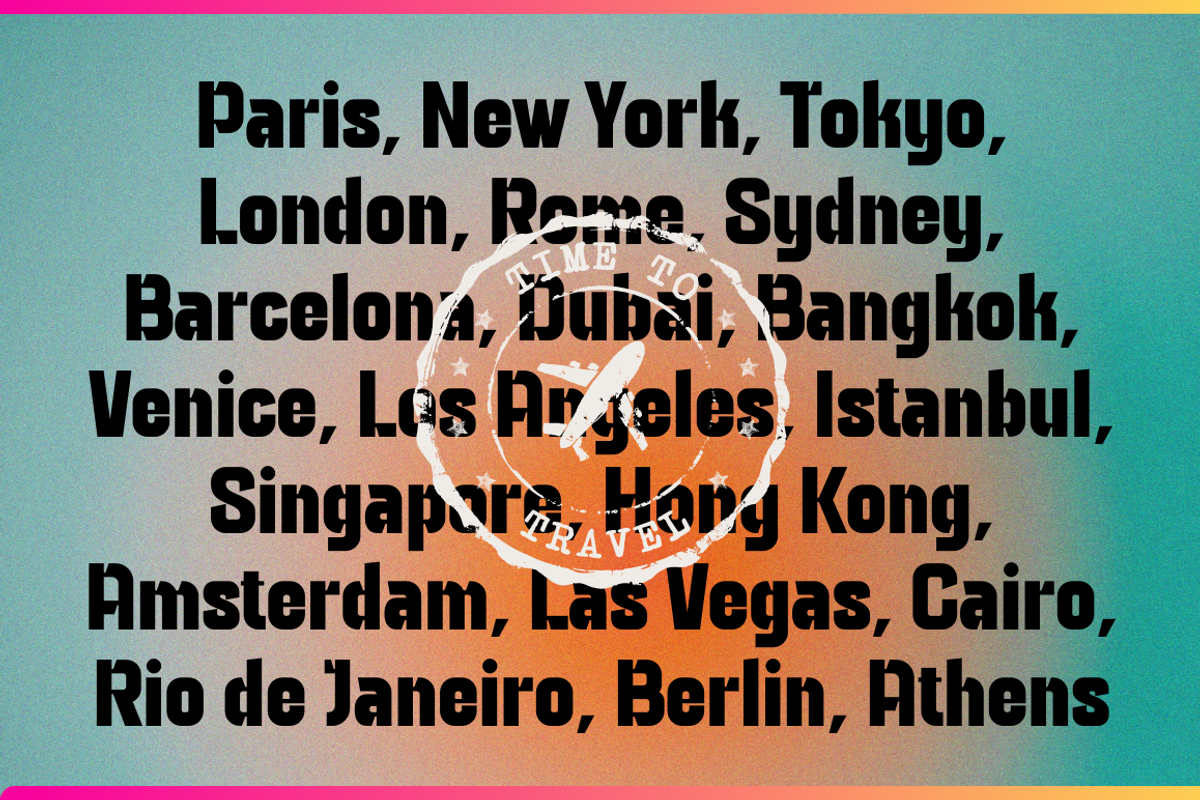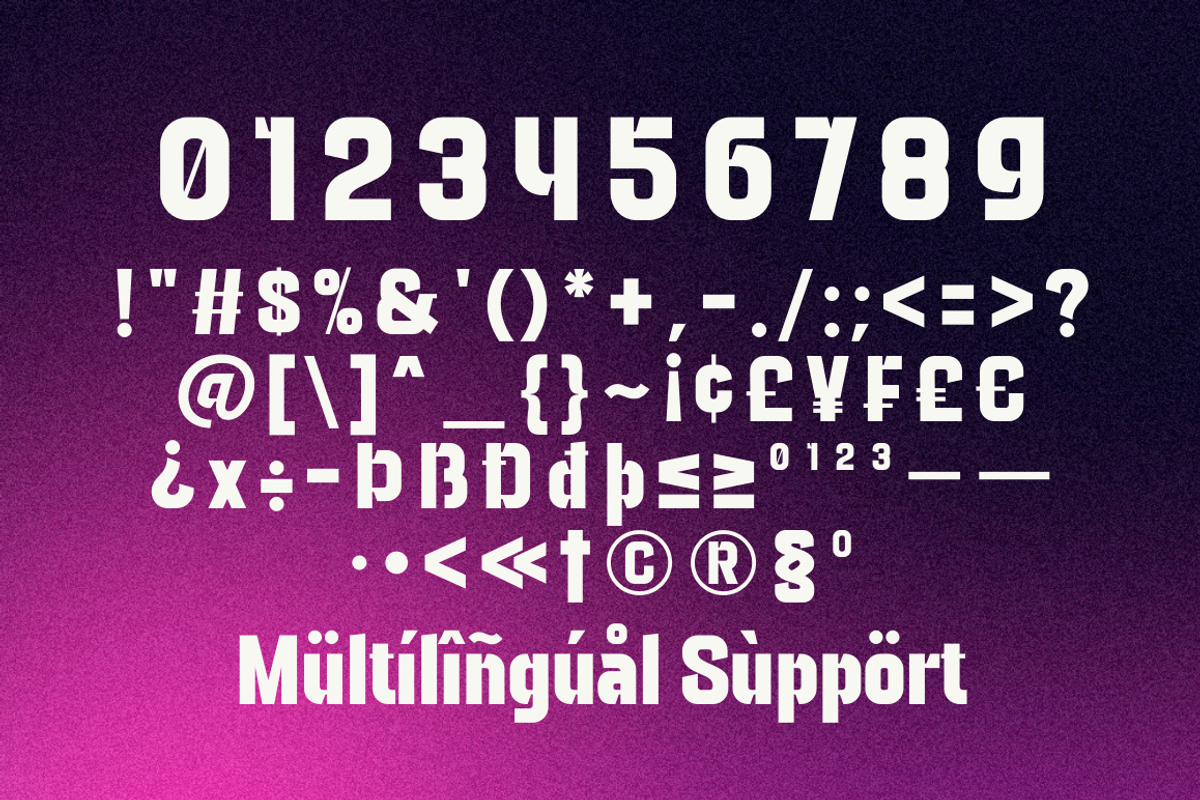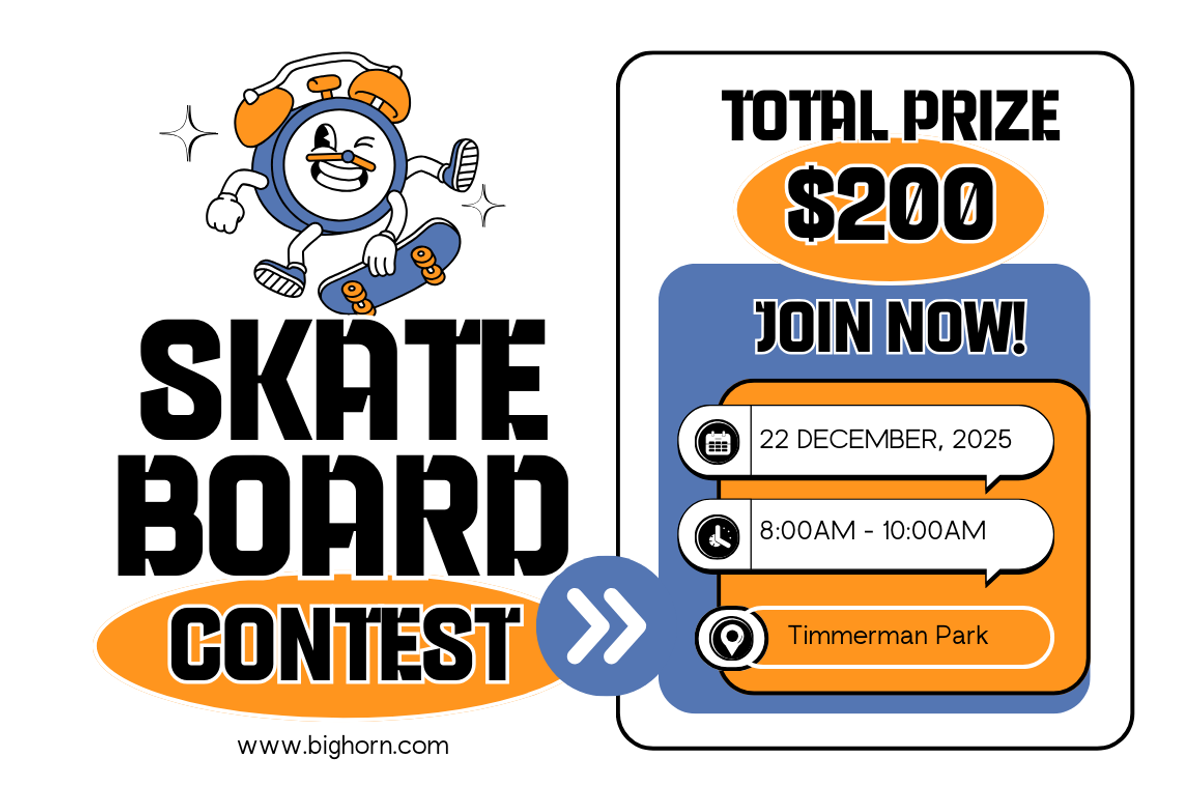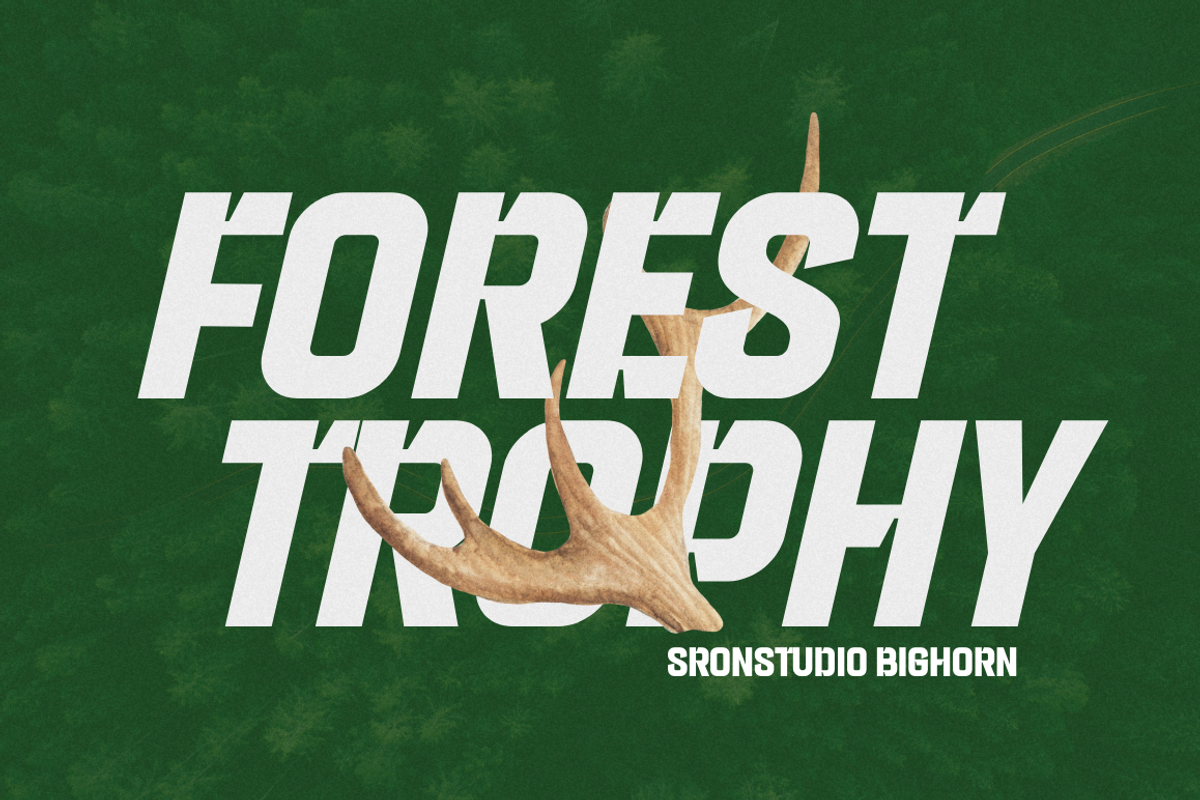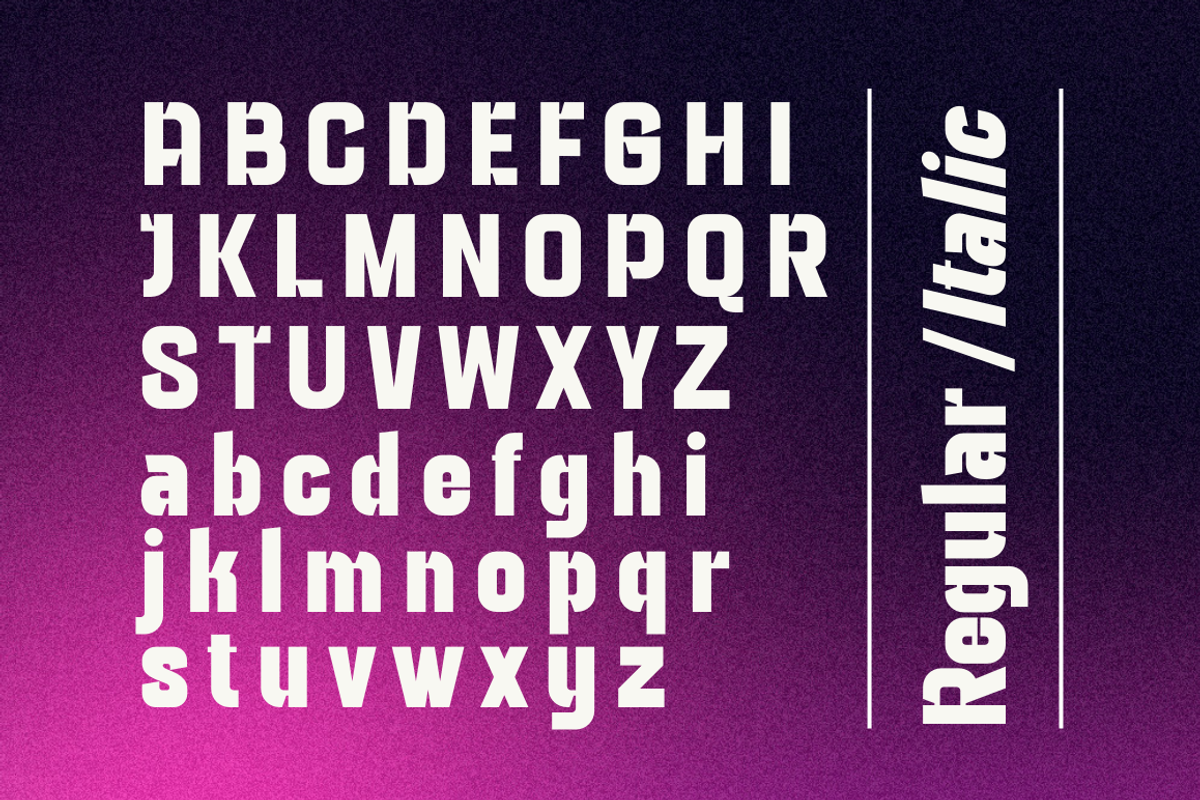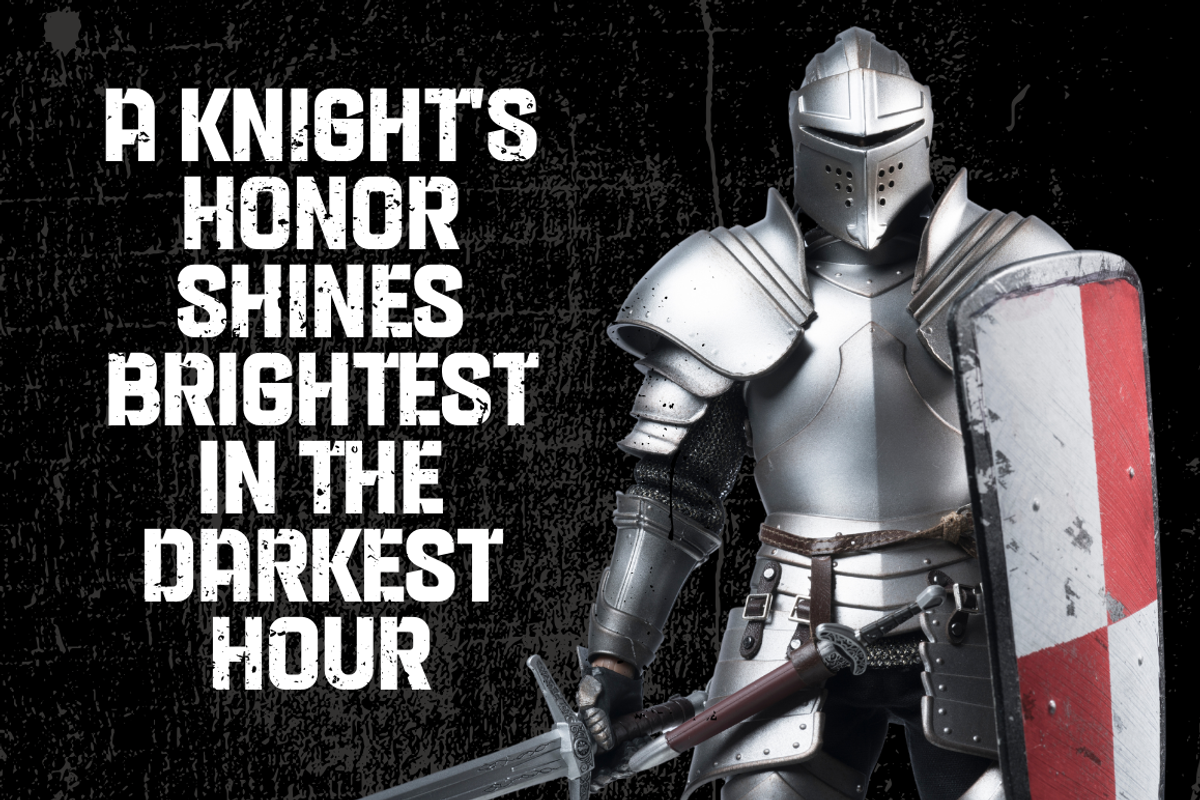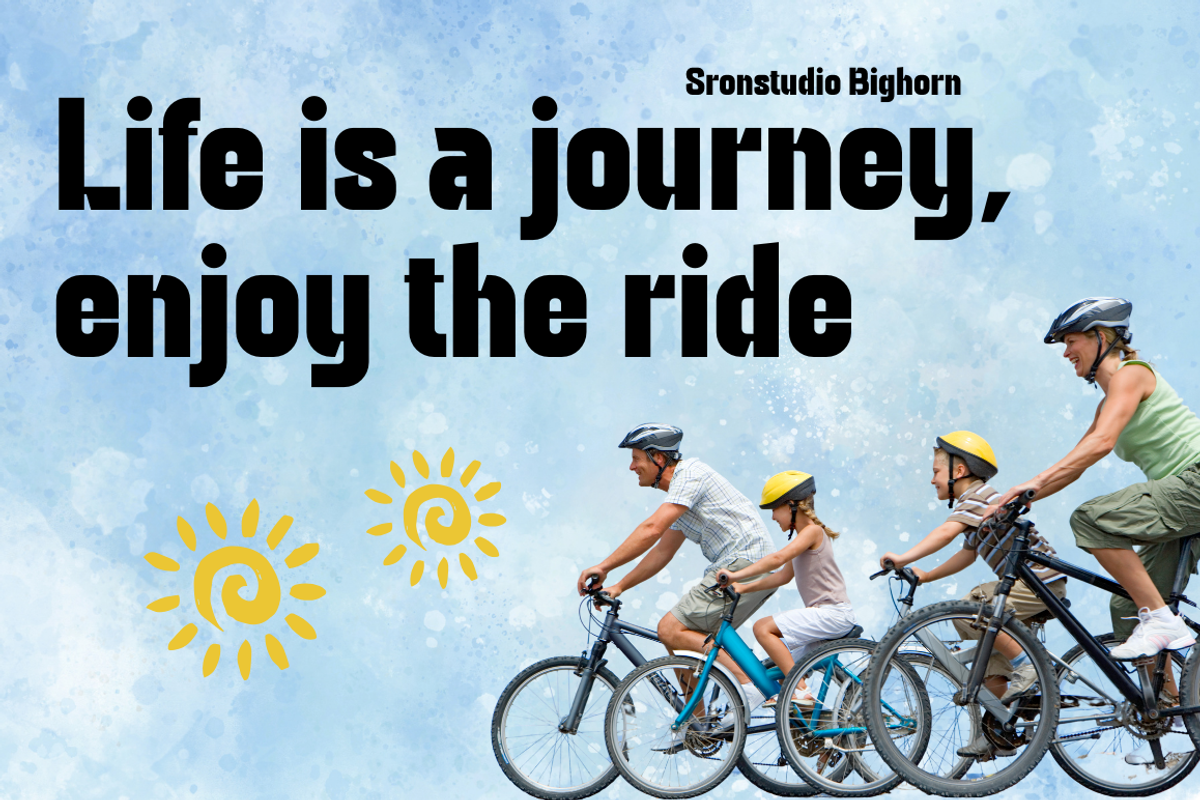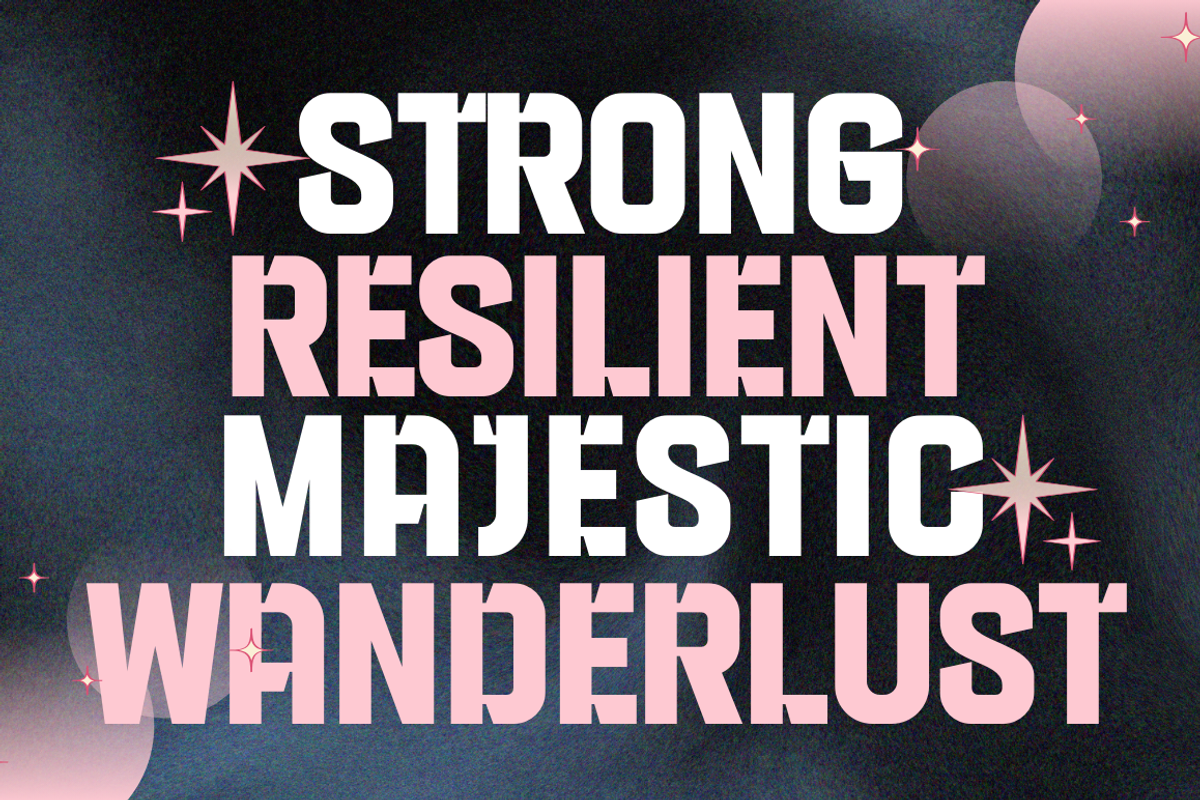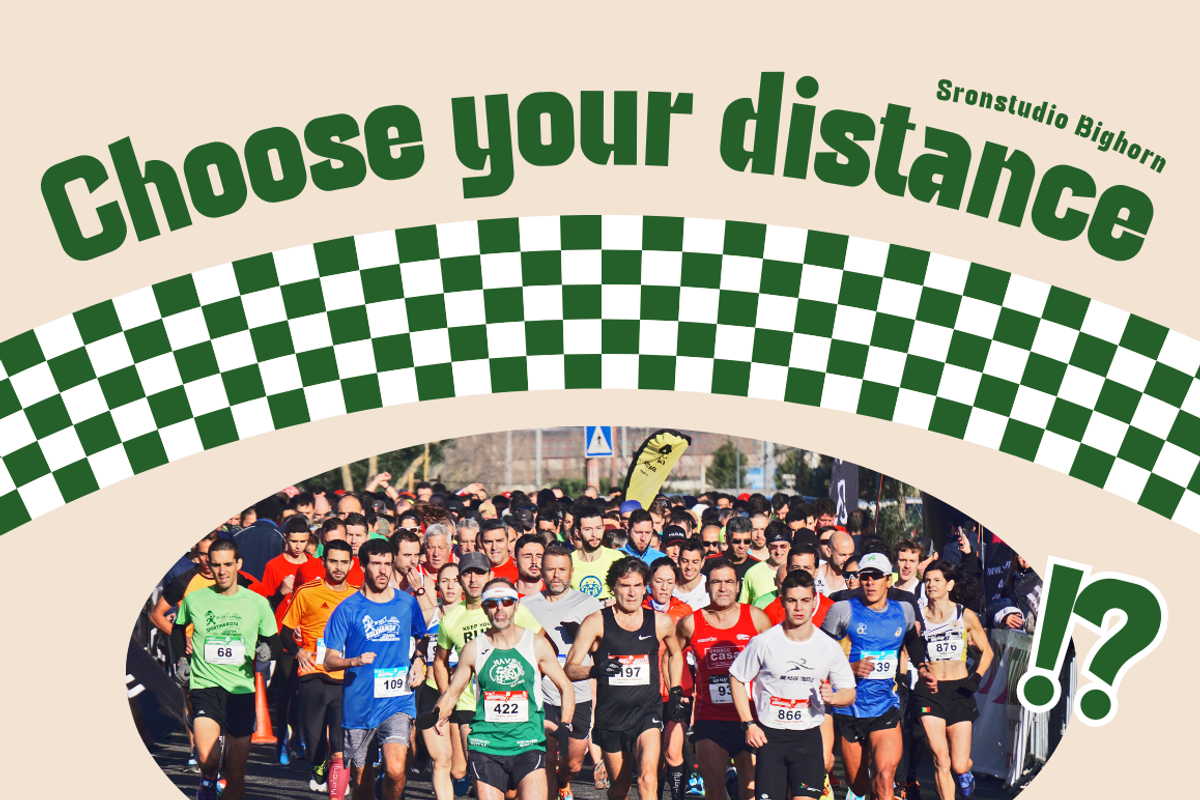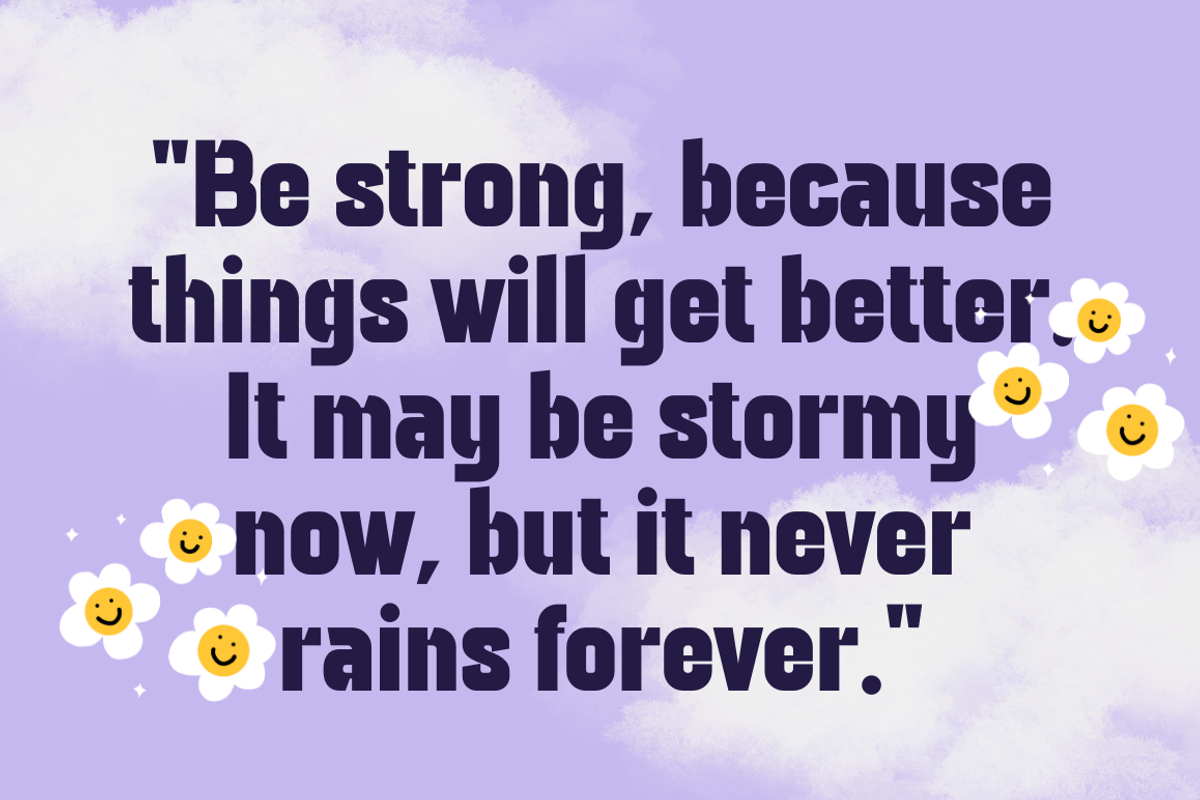
Bighorn - Bold Strong Font
Introducing "Bighorn," a modern bold font that exudes strength and confidence. With its powerful and robust design, "Bighorn" is perfect for making a bold statement in headlines, logos, posters, and branding projects. Its strong lines and commanding presence will ensure your message stands out with authority and style. Make an impact with "Bighorn."
- 2 Style Regular & Italic